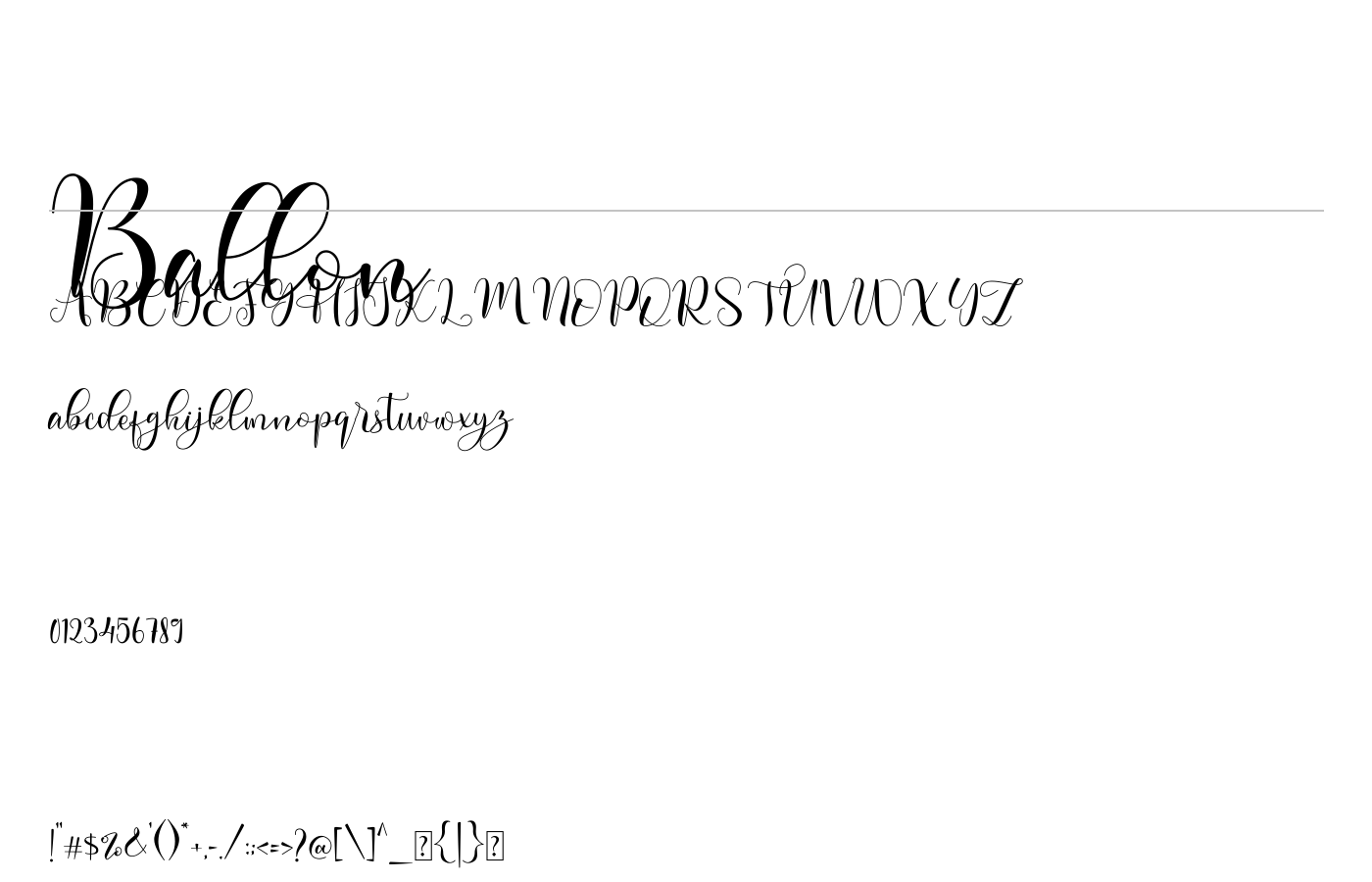
Ballon is a delicate and elegant script font characterized by its thin, fluid strokes and graceful curves that resemble fine calligraphy. Its tall x-height and ornate swashes give it a refined, luxury feel, making it perfect for wedding invitations, fashion branding, and sophisticated editorial designs where a stylish, handwritten touch is desired. This font works best in large sizes for headlines or decorative purposes, as its intricate details may reduce legibility at smaller scales.
Ballon Font